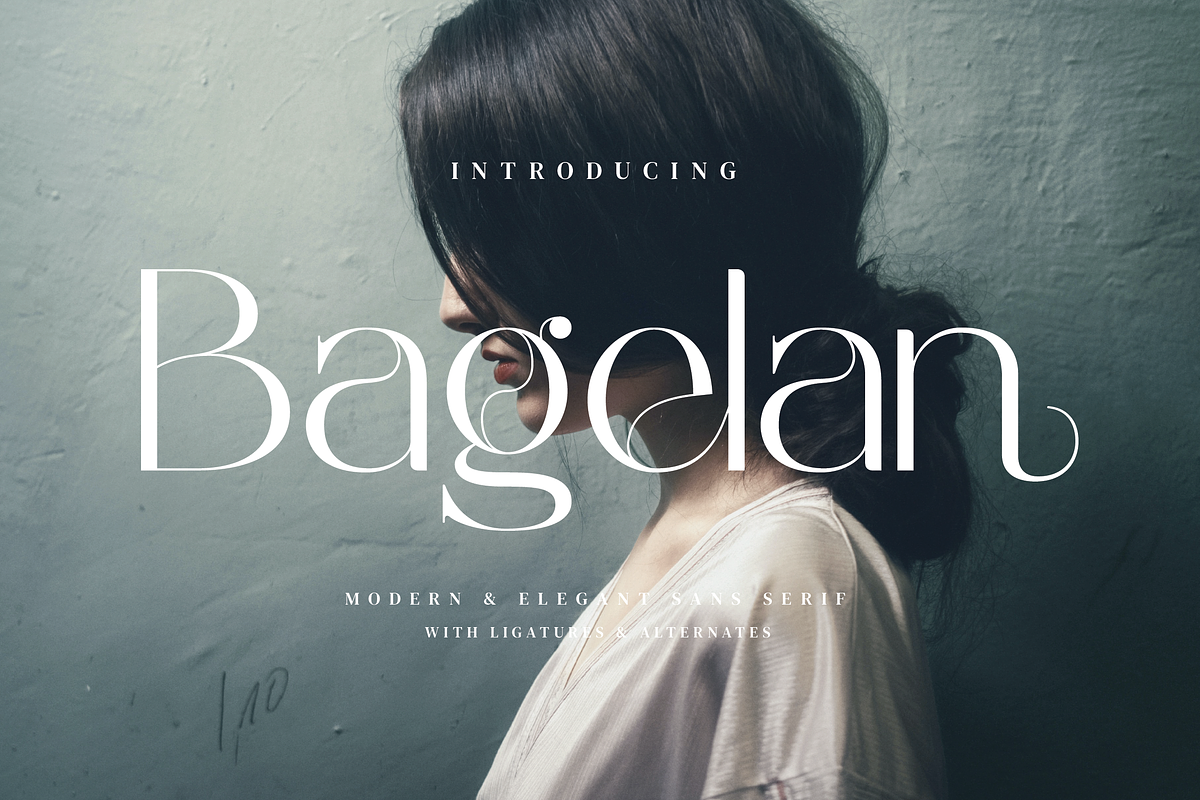
Bagelan - Modern Sans Font Free Download
Bagelan Font Free Download is a sleek and modern sans-serif typeface designed to offer clean lines and high readability. With its minimalist design and geometric precision, Bagelan is perfect for contemporary branding, websites, editorial layouts, product packaging, and any project that demands a modern, professional look.
Bagelan Font Free Download features a harmonious balance between simplicity and style, making it a versatile choice for both large headlines and body text. Its crisp, geometric shapes and clear structure make it ideal for digital design, print materials, and corporate identities.
Whether you’re designing a sleek logo, a user-friendly interface, or clean promotional materials, Bagelan adds a contemporary, polished touch to your work. It pairs beautifully with other fonts for dynamic compositions or can stand alone for a streamlined, modern look.